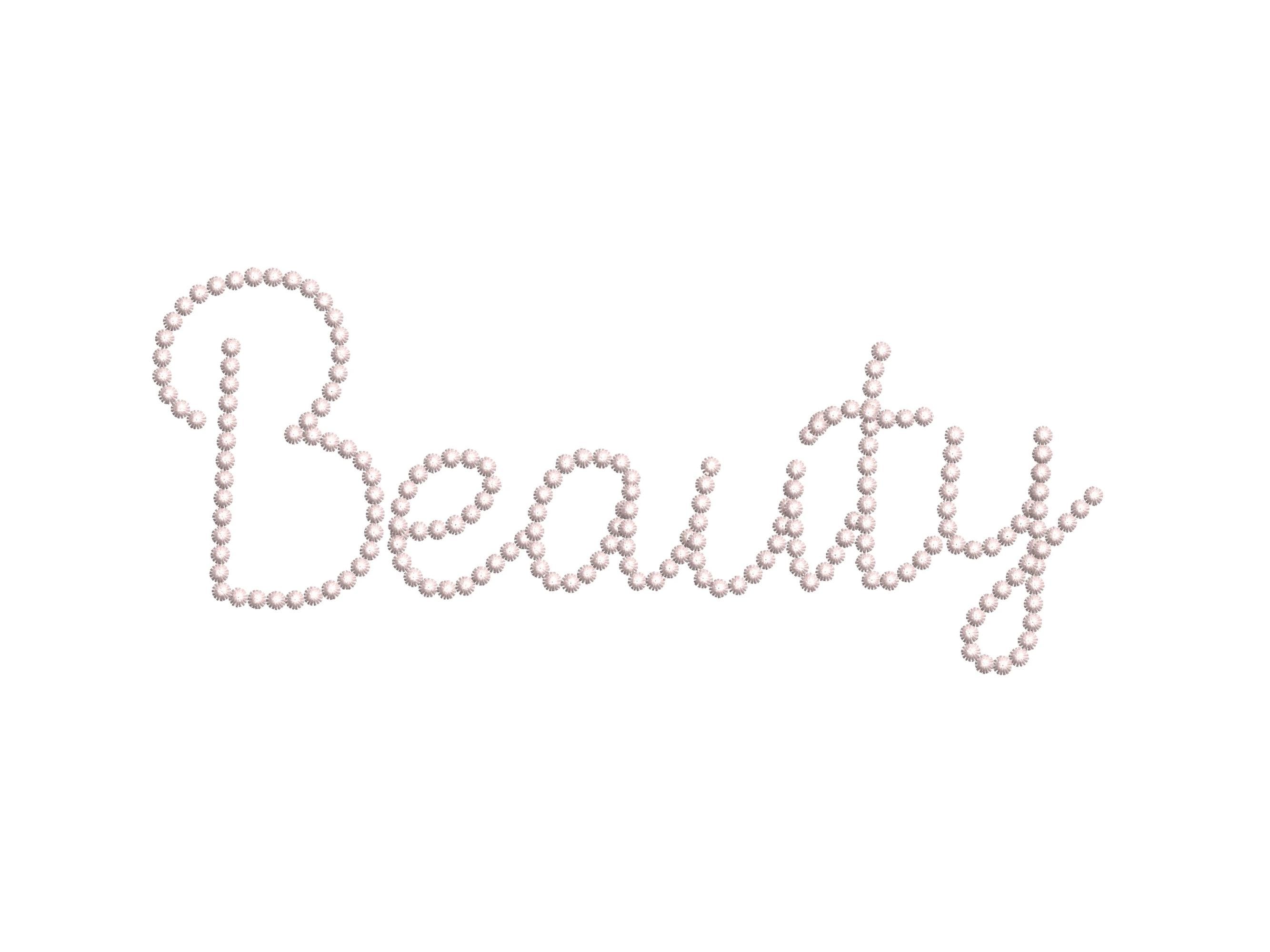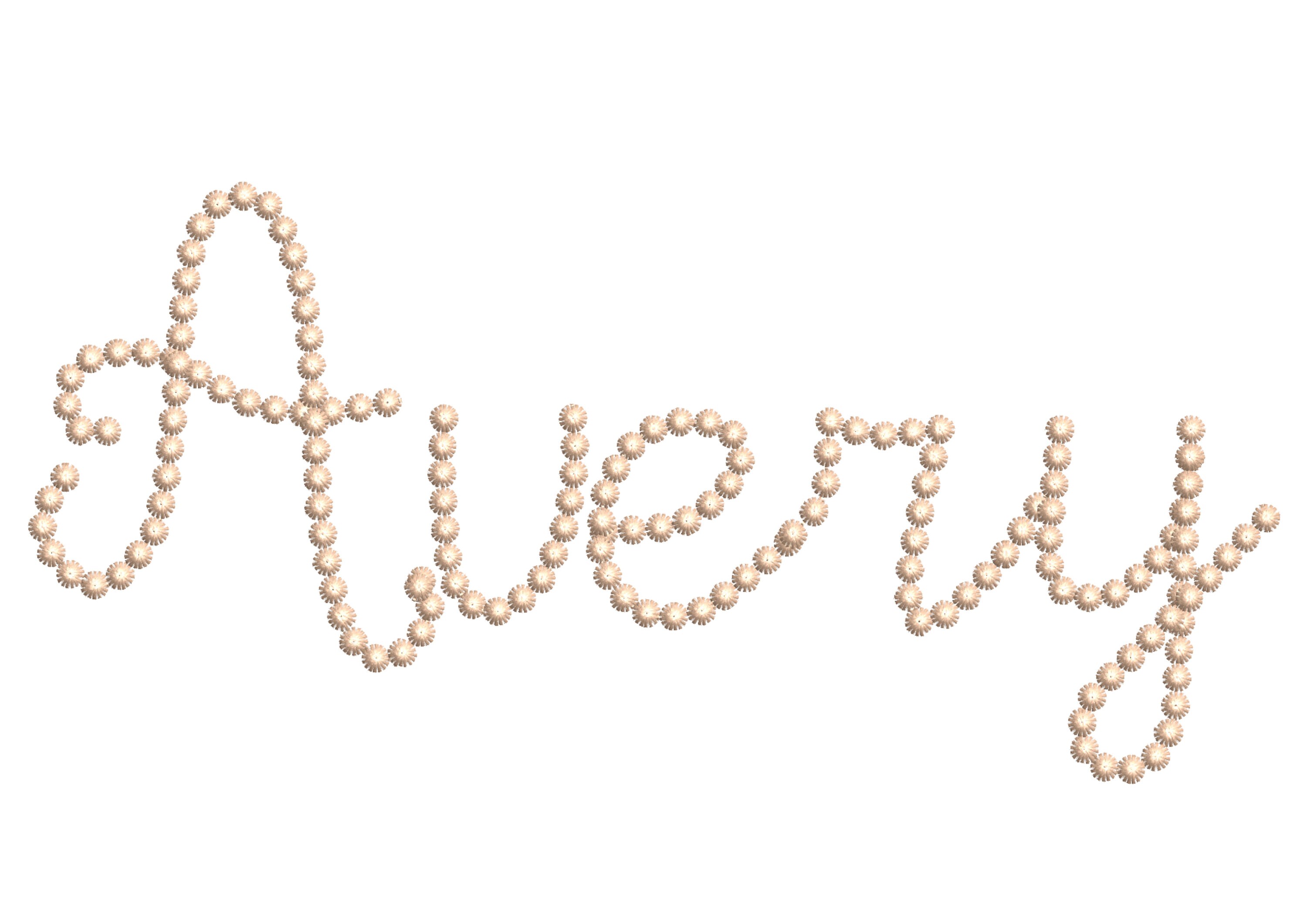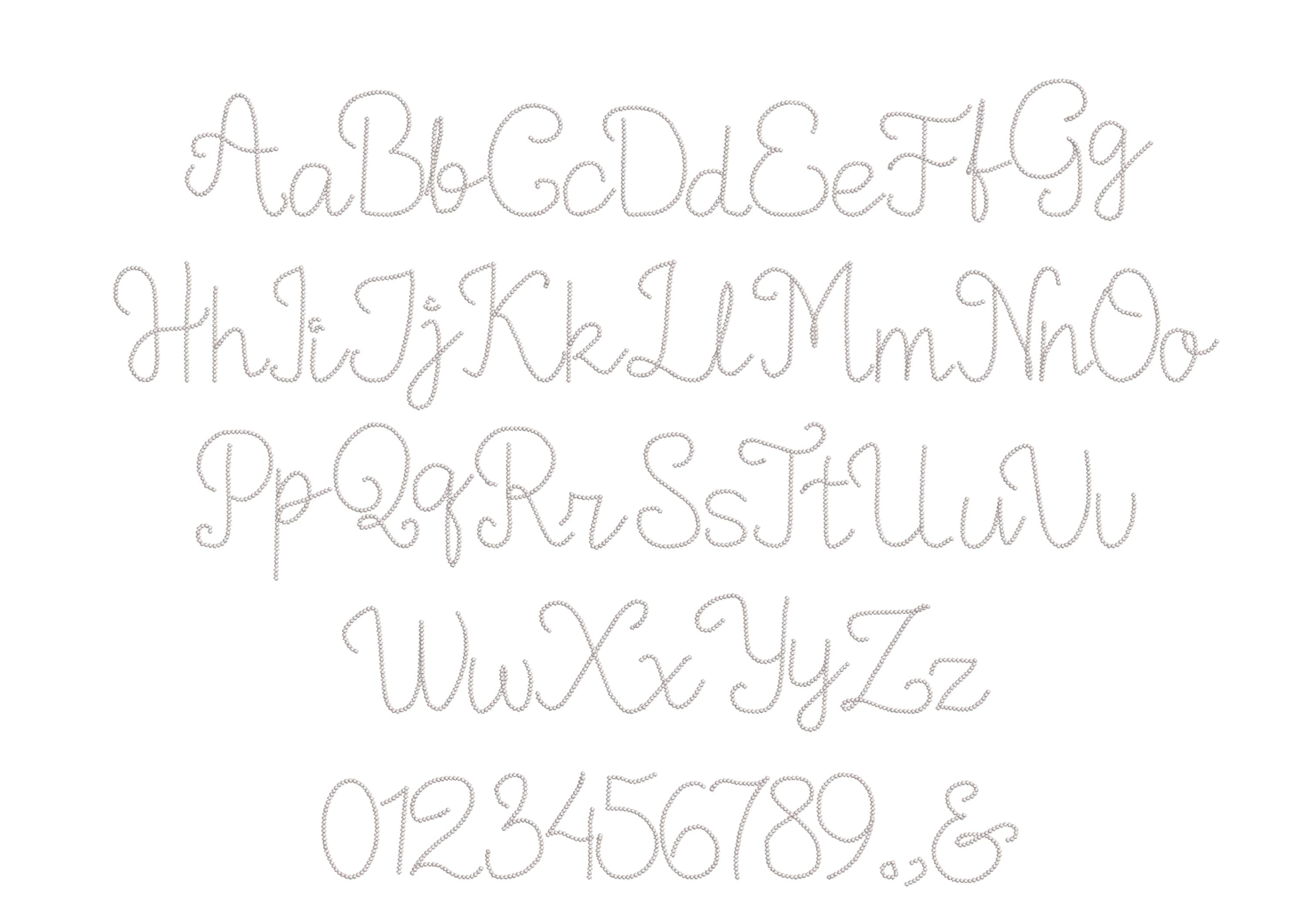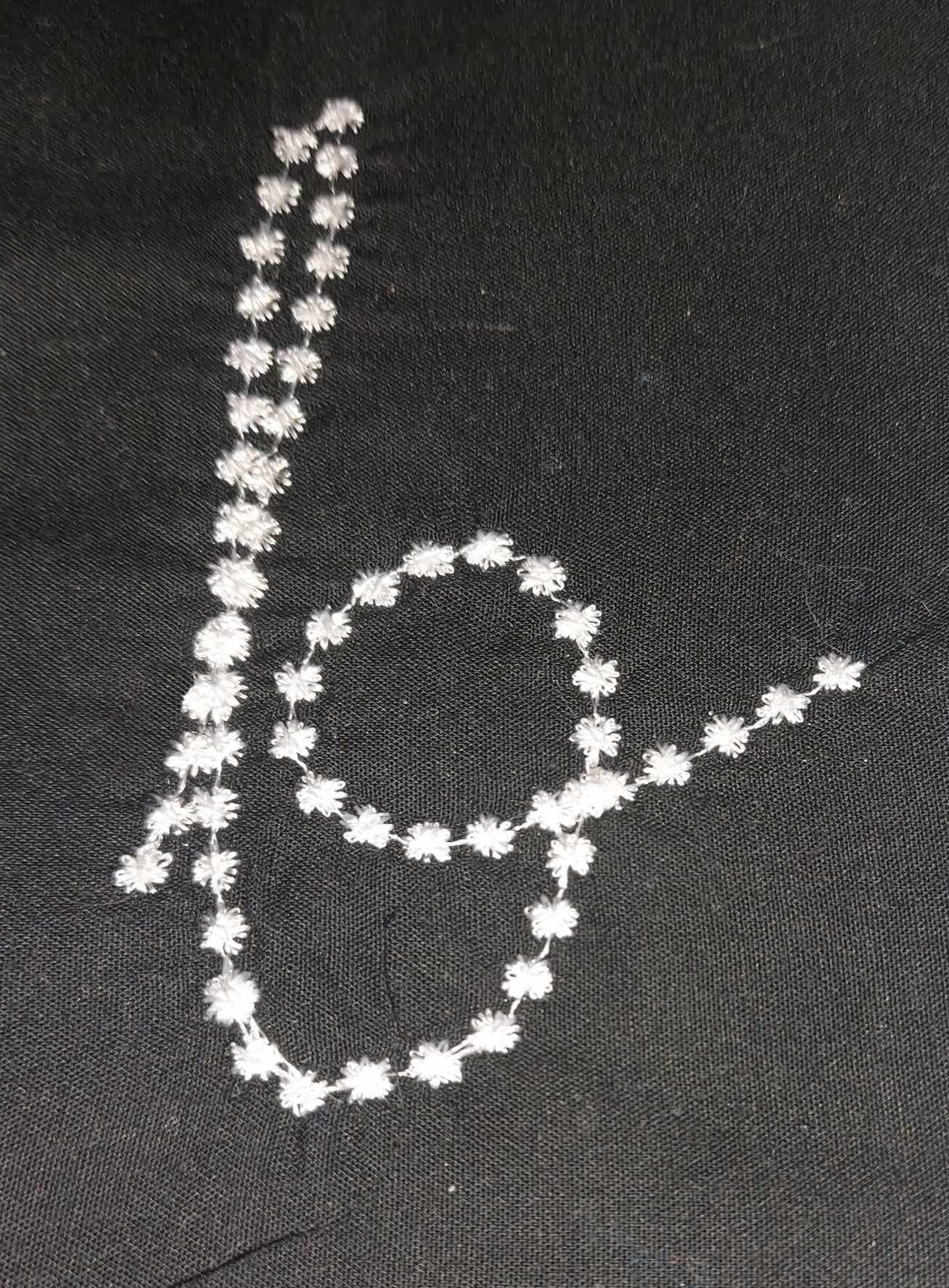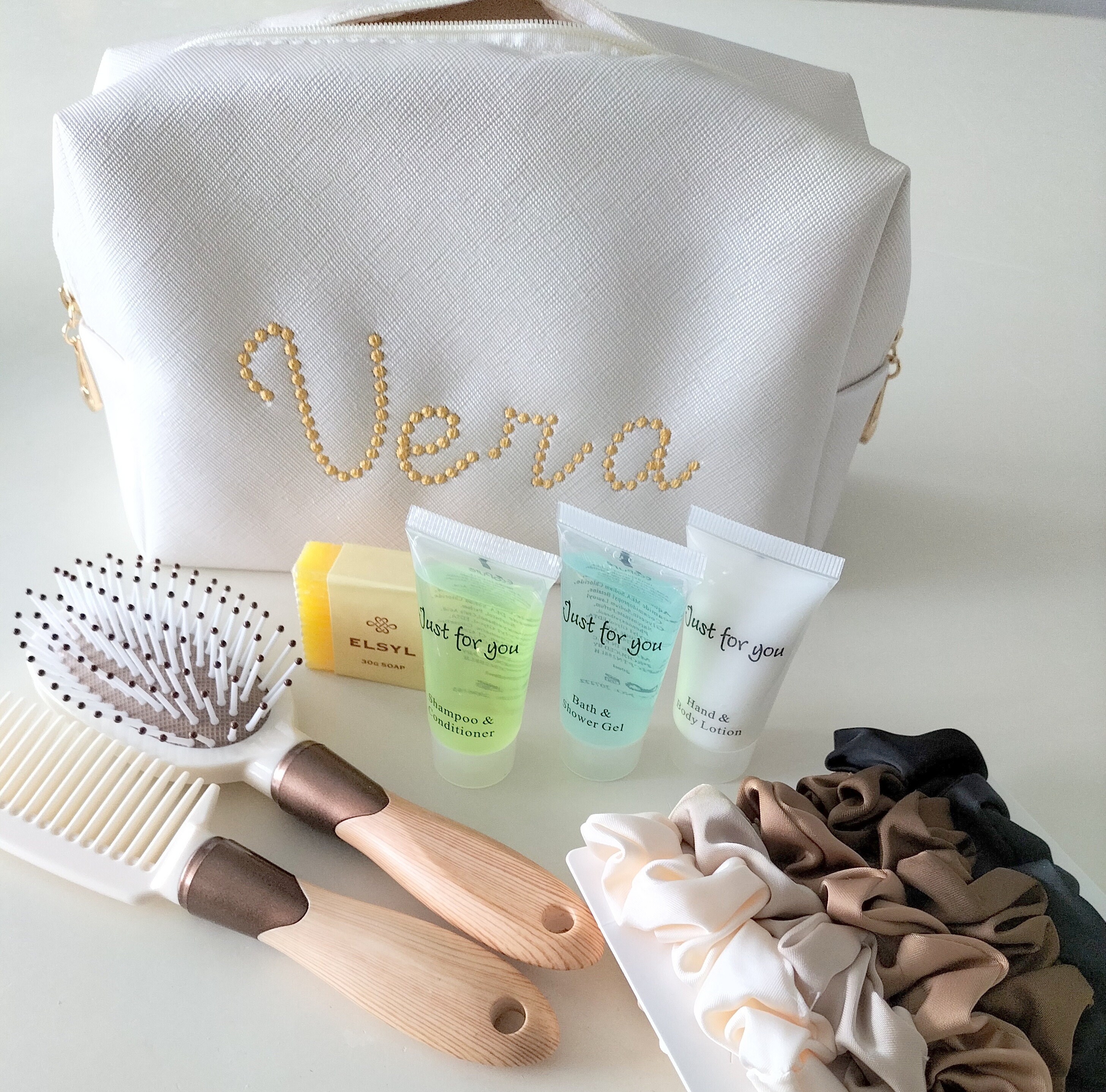
Awesome Pearl stitch script handwritten FONT Beauty feminine girls Alphabet Monogram machine embroidery designs sizes 1.6 up to 4.7 inch BX
Entire alphabet uppercase and lowercase letters, numbers, and punctuation.
very disappointed not what I was hoping for I expected these to look like pearls but they are more like full stops lol , dent get me wrong as they embroidered fine just not what I wanted
Just Beautiful ❤️❤️❤️ Love how it came out 🤩🤩🤩
It stitched out so pretty.
Heel speels lettertype wat prachtig borduurt op kunstleer voor een toilettas. Erg gemakkelijk met het BX bestand. Zeker aan te bevelen.